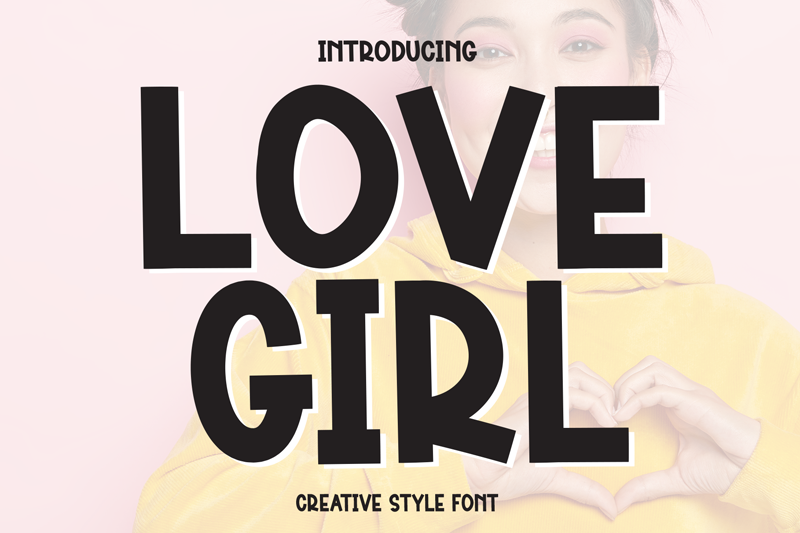
Love Girl
DETAILS special creative products for you, our products will give you an extraordinary experience. the latest style letters are perfect for wall displays, wedding invitations, social media post logos, advertisements, product packaging, product designs, labels, photography, watermarks, invitations, stationery, and any project that requires taste handwriting. Links for license and contact: ================================================== ========= https://scratchones.com gmail : afistakosongtujuh@gmail.com mailto:afistakosongtujuh@gmail.com ================================================== ========= ATTENTION: WARNING!!! By installing or using this font, you agree to the Product Use Agreement: - This font has a FULL VERSION and is ONLY for PERSONAL USE. NO COMMERCIAL USE! - If you need CUSTOM PERMIT or COMPANY PERMIT please go to : ( www.scratchones.com http://www.scratchones.com ) - Any donations are greatly appreciated. Paypal account for donations: ( www.paypal.me/scratchones http://www.paypal.me/scratchones ) USE OF COMMERCIAL FONT WITHOUT PURCHASE OF LICENSE OFFICIAL www.scratchones.com http://www.scratchones.com will be fined 8X THE MINIMUM LICENSE FEES FROM THE LICENSE PRICE !!!!